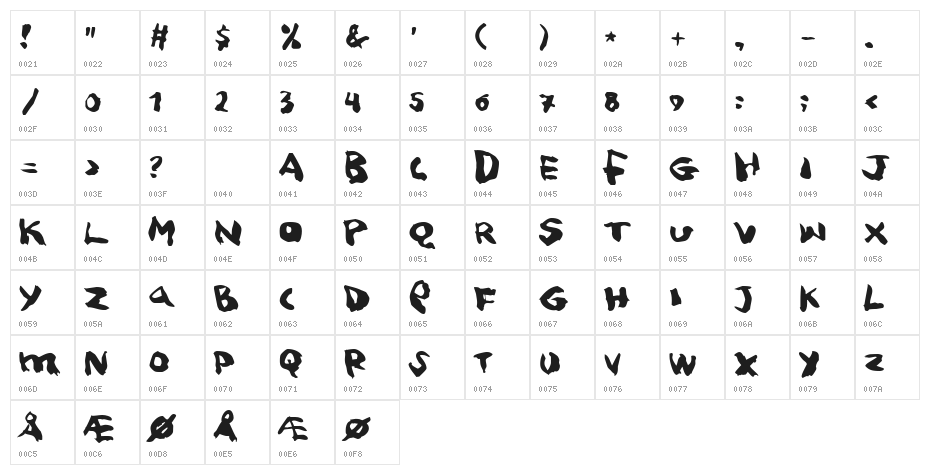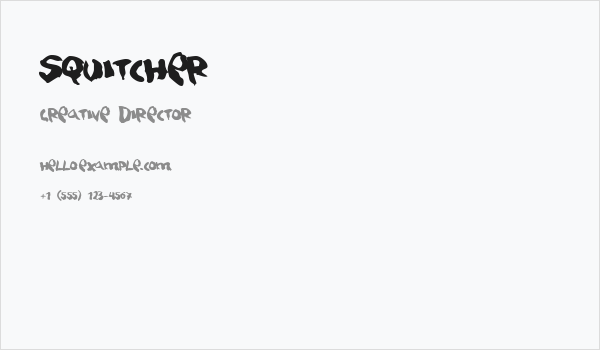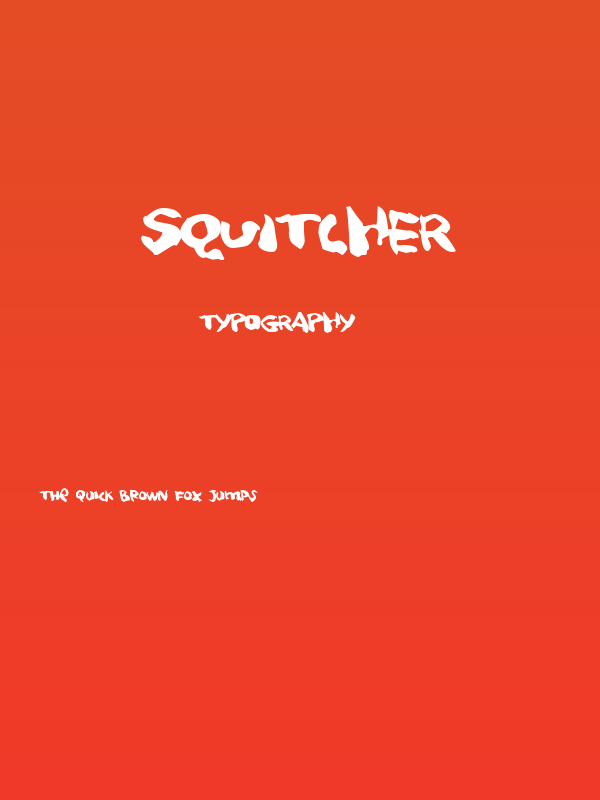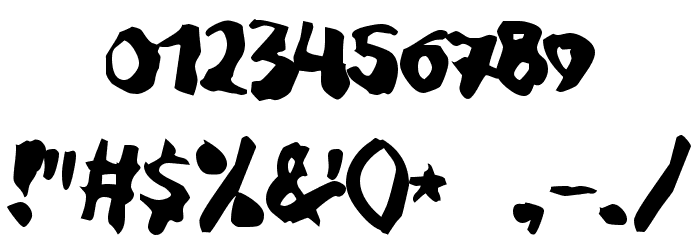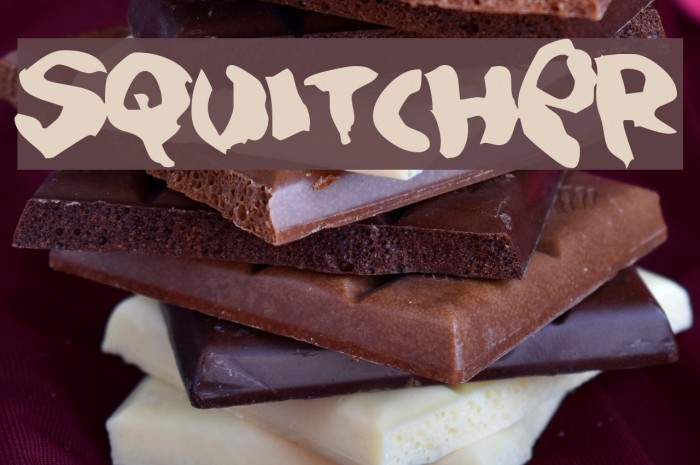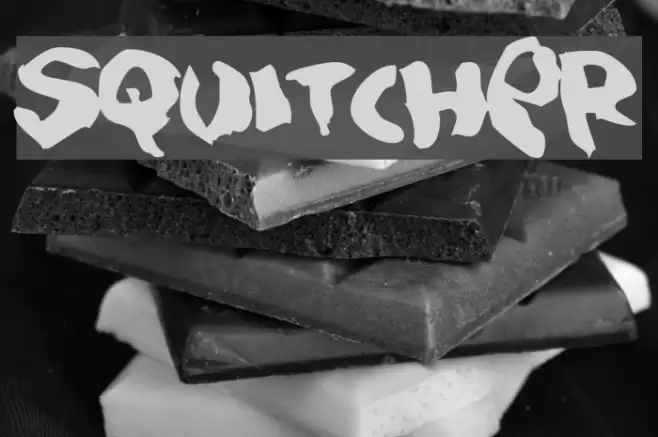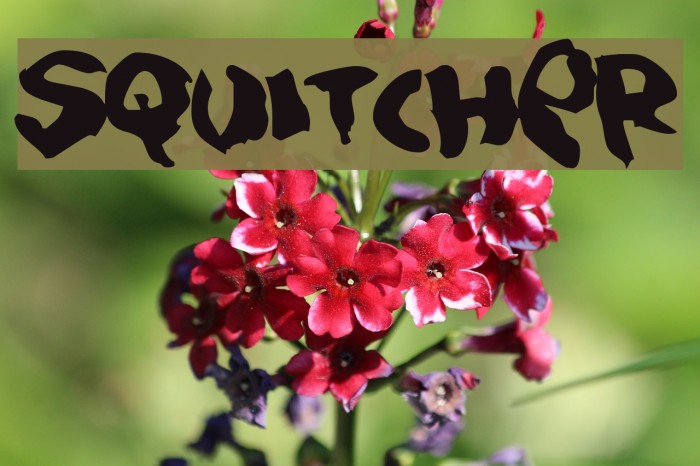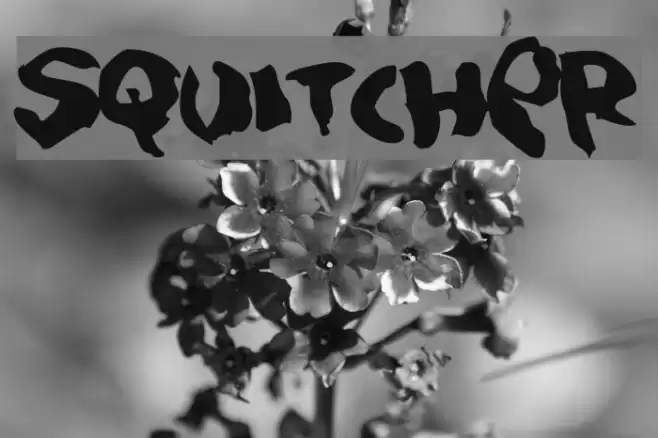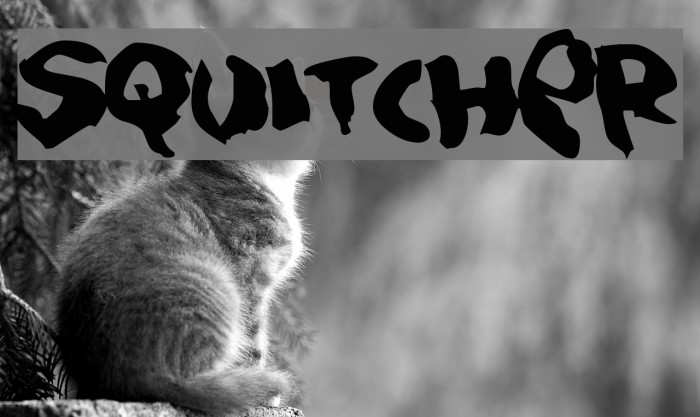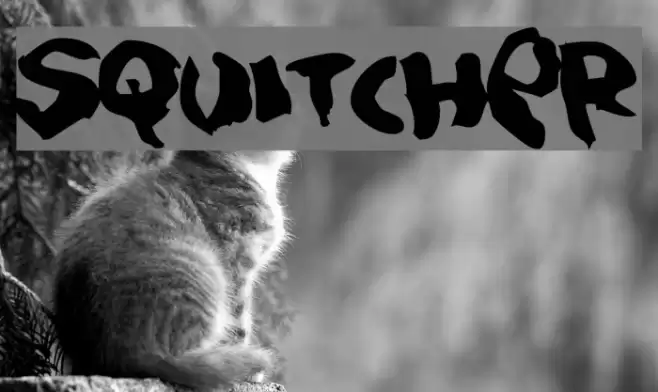
Squitcher Font
Squitcher Description
This font features a bold and dynamic style with a hand-drawn appearance. The characters are irregular and have a playful, graffiti-like aesthetic, making them stand out with their unique and artistic flair. The strokes are thick and uneven, giving the font a rugged and edgy look. The uppercase and lowercase letters maintain a consistent style, while the numbers and special characters complement the overall design. This font is ideal for projects that require a bold statement and a creative touch.
| Overall Style | Modern, Artistic |
| Proposed Projects | Perfect for street art designs, posters, album covers, and creative branding projects. |